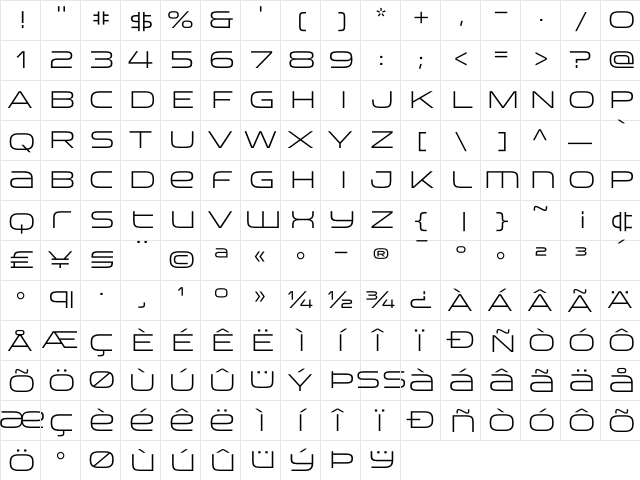
HouseMovements-Runway Regular
| Designer | House Industries |
Design Context for HouseMovements-Runway Typeface
HouseMovements-Runway takes a measured approach to typography — its balanced proportions and neutral character make it a reliable workhorse for both digital and print work.